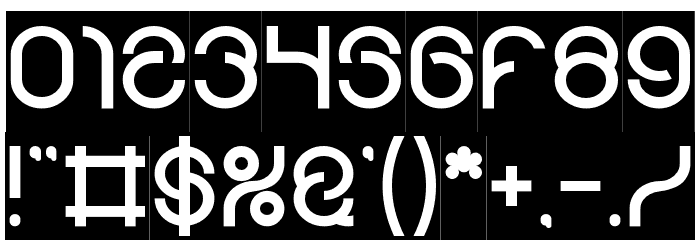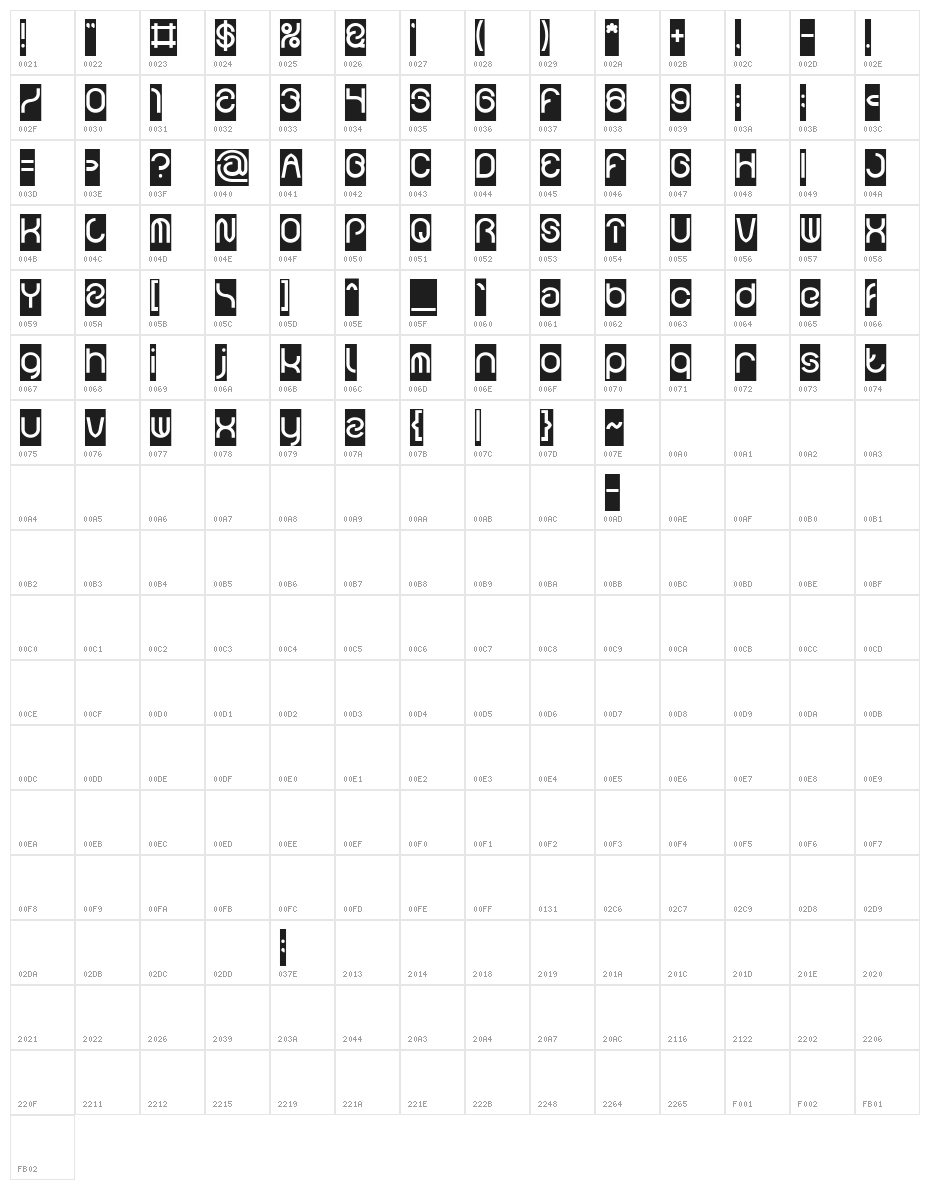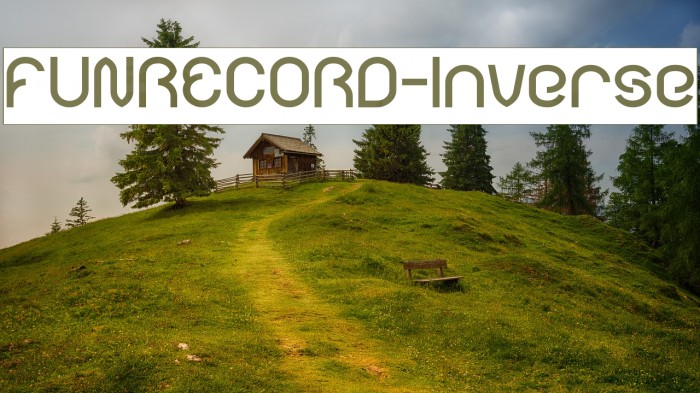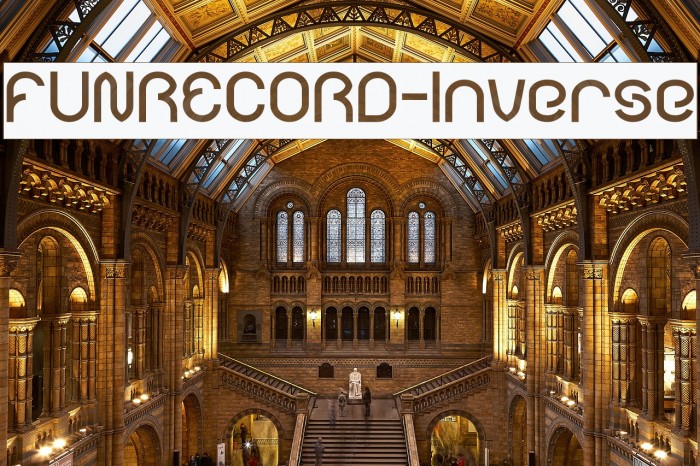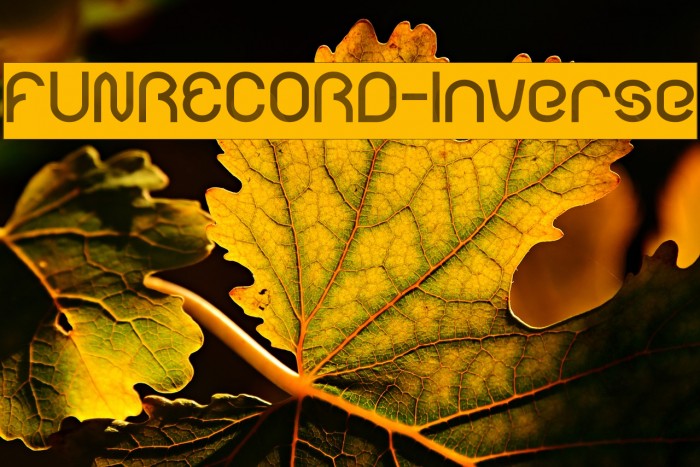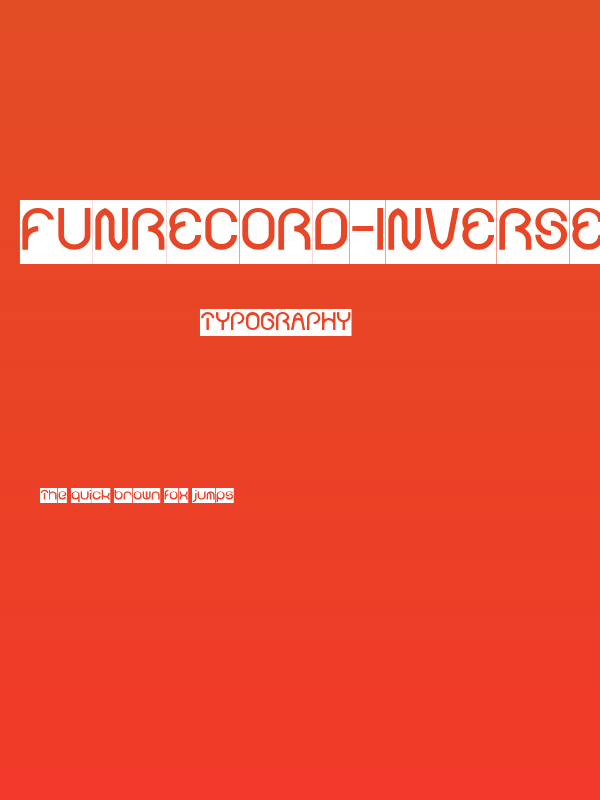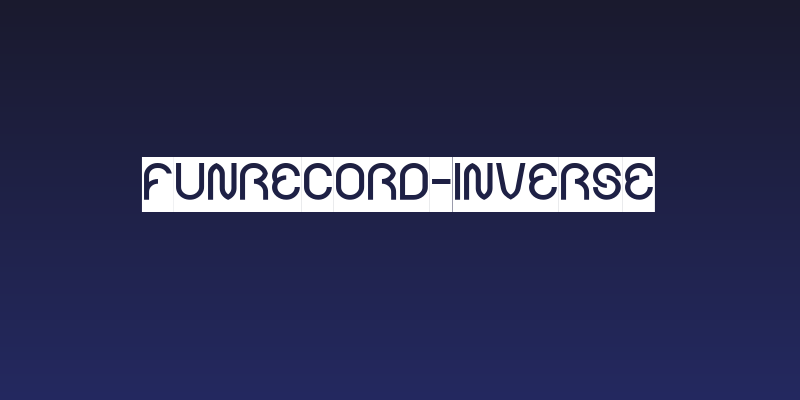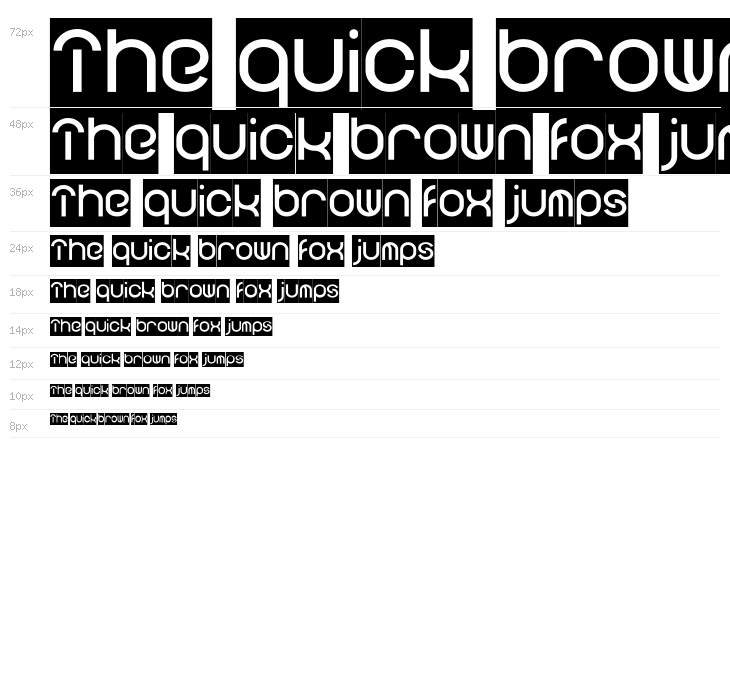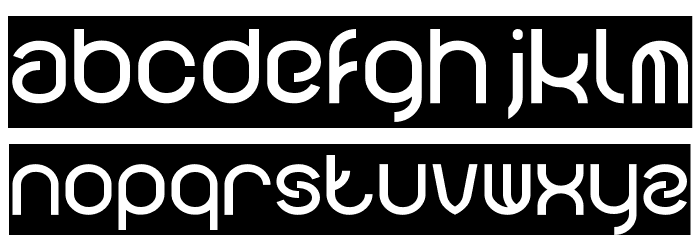
FUNRECORD-Inverse Font
FUNRECORD-Inverse Description
This font features a unique and modern design with a futuristic flair. The characters are bold and rounded, with a consistent stroke width that gives it a clean and cohesive look. The uppercase letters have a distinct geometric style, while the lowercase letters maintain a similar aesthetic with slight variations in curvature. The numbers and special characters are designed to match the overall style, making the font versatile for various applications. The font's design is both eye-catching and functional, suitable for projects that require a contemporary and innovative appearance.
| Overall Style | Futuristic, Geometric |
| Use Case | Headlines, Logos, Digital Media |
| Proposed Projects | Ideal for branding, advertising, digital media, and any project that requires a modern and innovative look. |